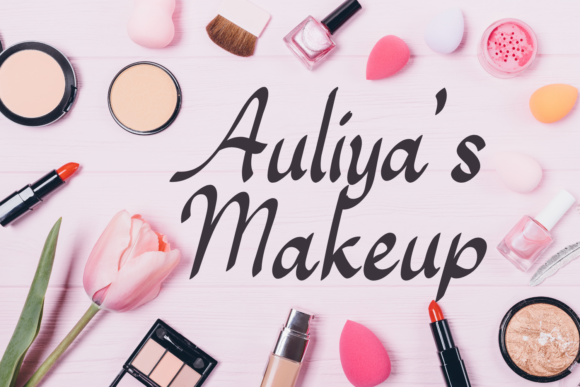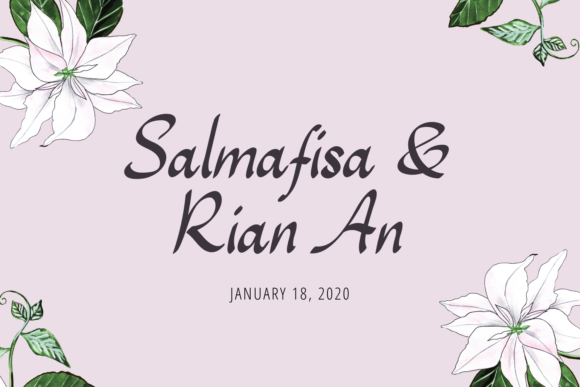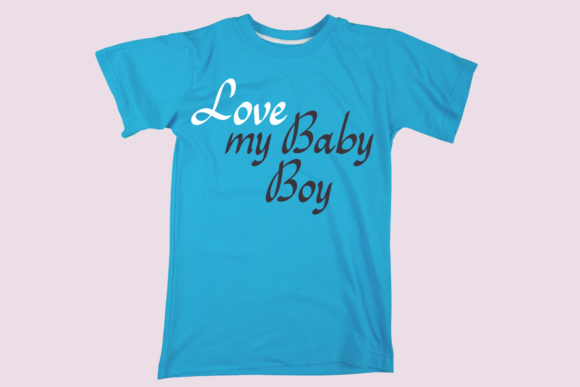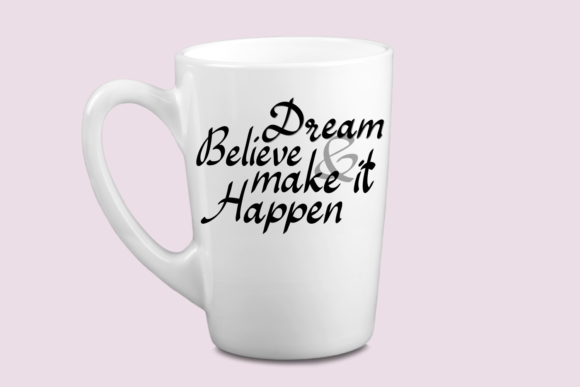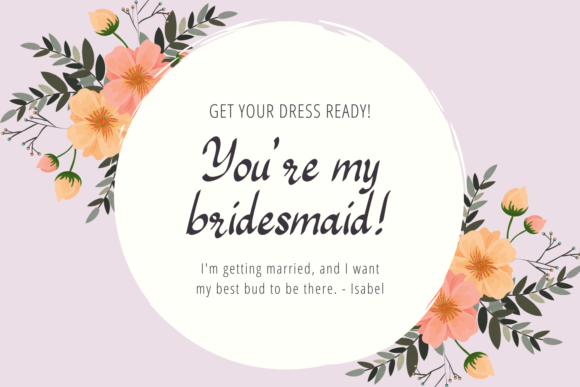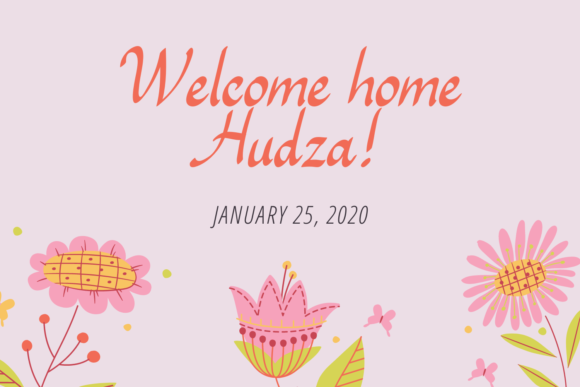
The Perfect Touch of Whimsy: Beauty Italic Font
Have you ever been working on a design project and suddenly, you need that one special element to tie everything together? Maybe it’s a font, a color, or a texture – something that adds a touch of personality to your work. For me, that moment often comes when I’m searching for the perfect handwritten font to give my designs a sense of whimsy and charm.
Enter the Beauty Italic Font – a delicate and beautiful handwritten font that’s sure to elevate each of your designs. Its simple and effective characters make it a valuable asset for designers looking to add a touch of elegance to their work. Whether you’re creating a wedding invitation, a brand identity, or a social media graphic, the Beauty Italic Font is sure to bring a sense of sophistication and refinement to your designs.
Beauty Italic Font Key Features
- Unique Characteristics: Beauty Italic Font features a beautiful, elegant, and cursive script, making it ideal for wedding invitations, greeting cards, and other special occasions.
Designer Review: Beauty Italic Font
I’ve had the chance to work with the Beauty Italic Font, and I must say it’s a mixed bag. ✨ On the plus side, the font does have a certain elegance to it, with clean lines and a subtle flair that makes it perfect for creative projects like invitations, posters, or even book titles. The font’s italic style adds a touch of sophistication, making it ideal for formal occasions or events where you want to make a lasting impression.
One of the standout features of Beauty Italic is its legibility. The font is easy to read, even at smaller sizes, making it a great choice for body text or headlines. The font also supports a wide range of languages, which is a major plus for designers who work on global projects.
- ⚠️ Limited font weights: Beauty Italic only comes in a few font weights, which can make it challenging to create visual hierarchies or emphasize certain text elements.
- ⚠️ Not ideal for body text: While the font is legible, it’s not the most comfortable to read in large blocks of text. It’s best used for headings, titles, or other smaller text elements.
- ⚠️ Limited glyph support: Beauty Italic may not support all the glyphs you need, which can be a problem if you’re working on a project that requires a specific character set.
Overall, Beauty Italic is a solid choice for designers who need a elegant, sophisticated font for specific projects. However, it’s not a go-to font for everyday use, and its limitations should be carefully considered before committing to a project.
The Beauty Italic font is ideal for creating elegant and sophisticated designs, such as:
– Luxury brand logos and marketing materials
– High-end fashion and beauty product labels
Remember to use the font in moderation to avoid overwhelming your design.
Playfair Display is a high-end, elegant serif font ideal for creating luxurious and sophisticated designs. It’s perfect for use in high-end branding, magazines, and advertising materials. Compared to Beauty Italic Font, Playfair Display has a more refined and sophisticated feel, making it suitable for formal and high-end designs.
Lato is a modern sans-serif font that’s highly legible and versatile. It’s suitable for use in a wide range of designs, from corporate branding to digital products. Compared to Beauty Italic Font, Lato has a more contemporary and clean feel, making it ideal for modern and minimalistic designs.